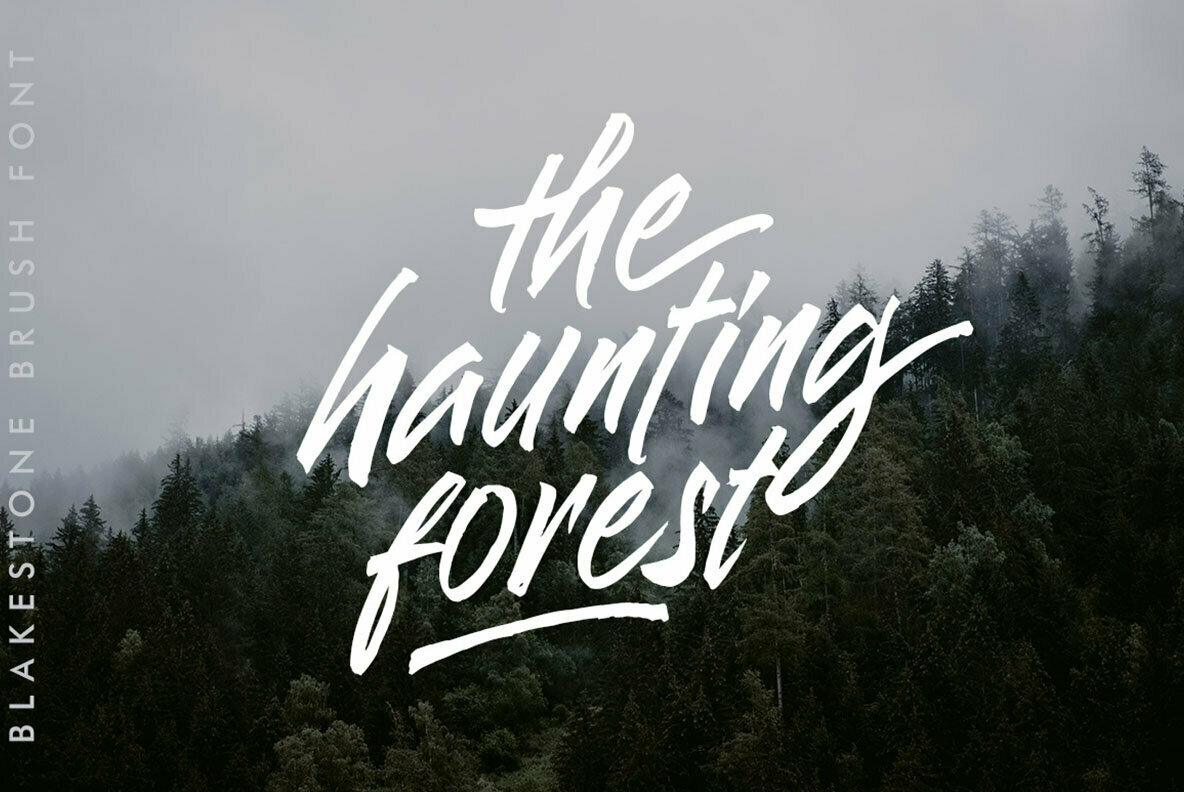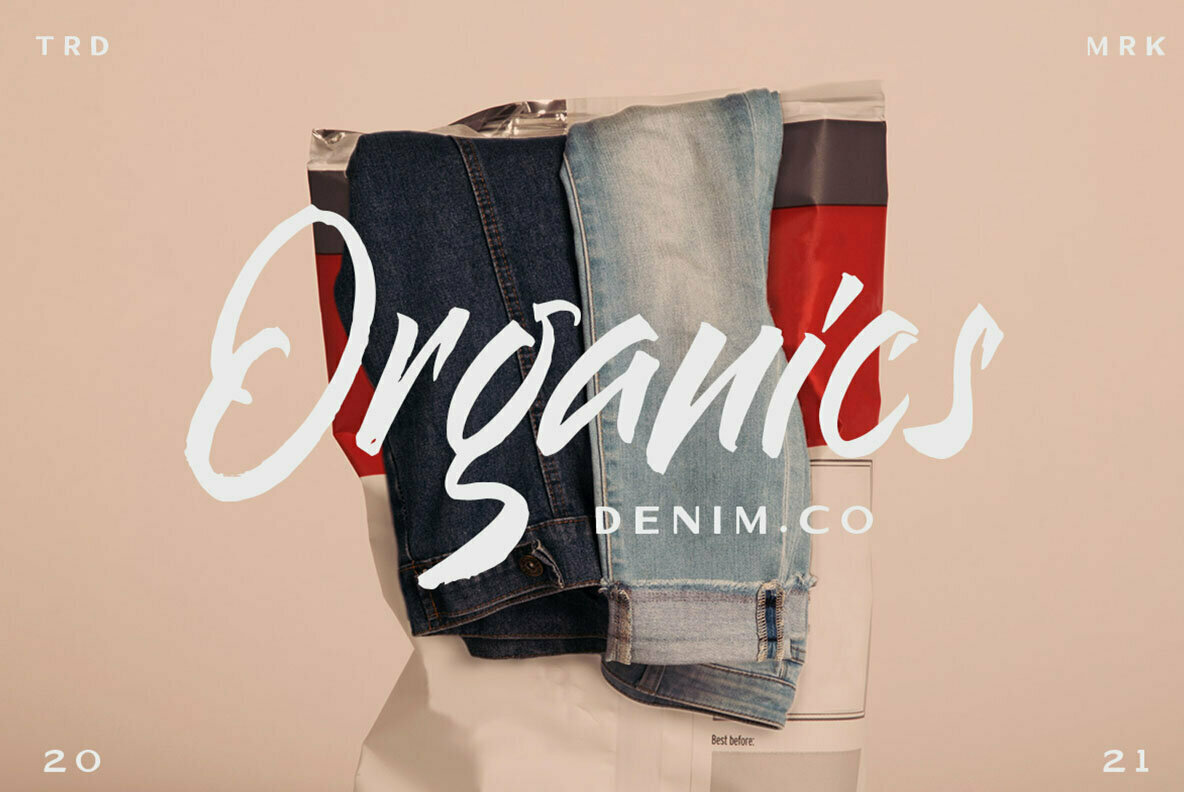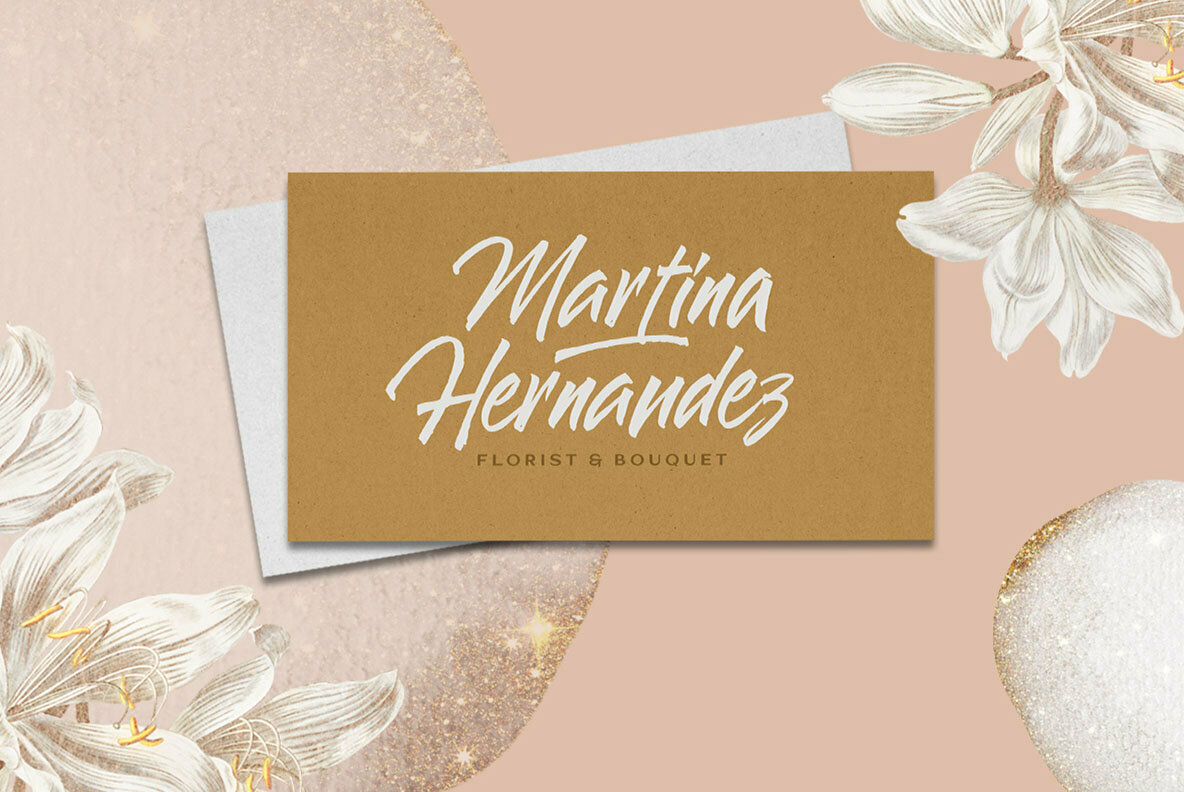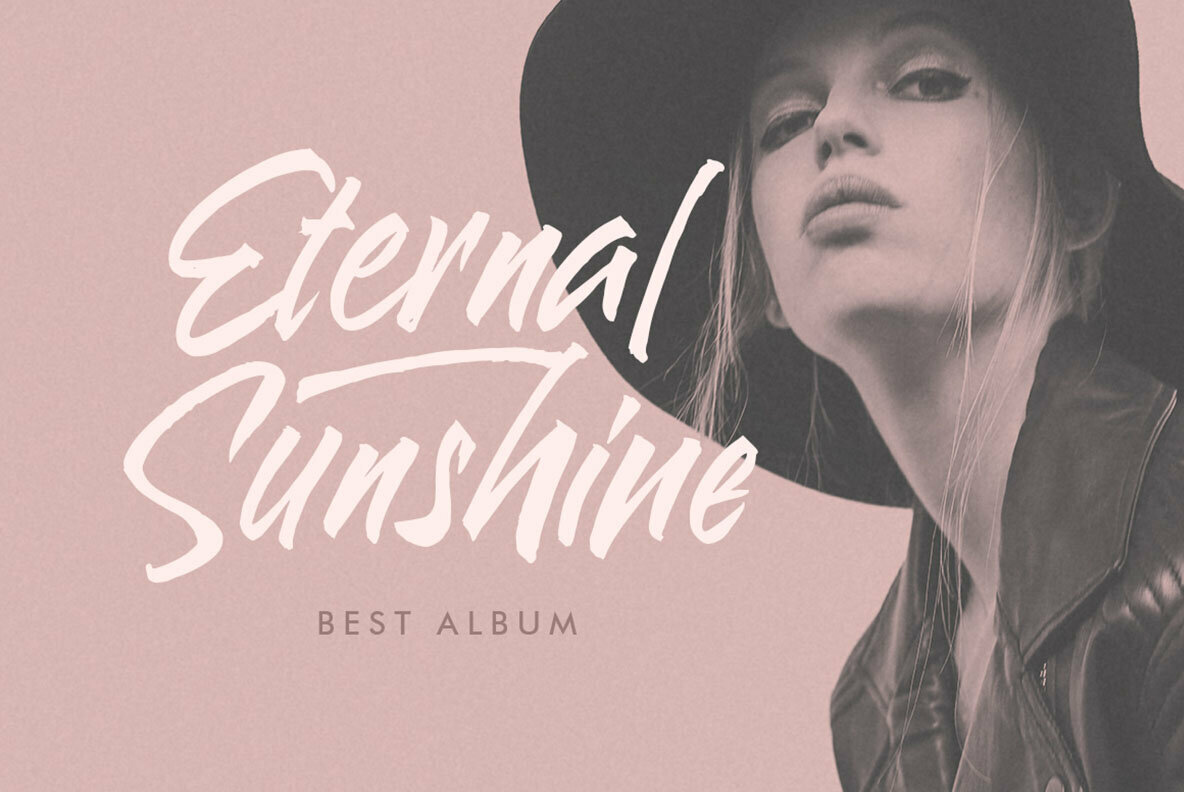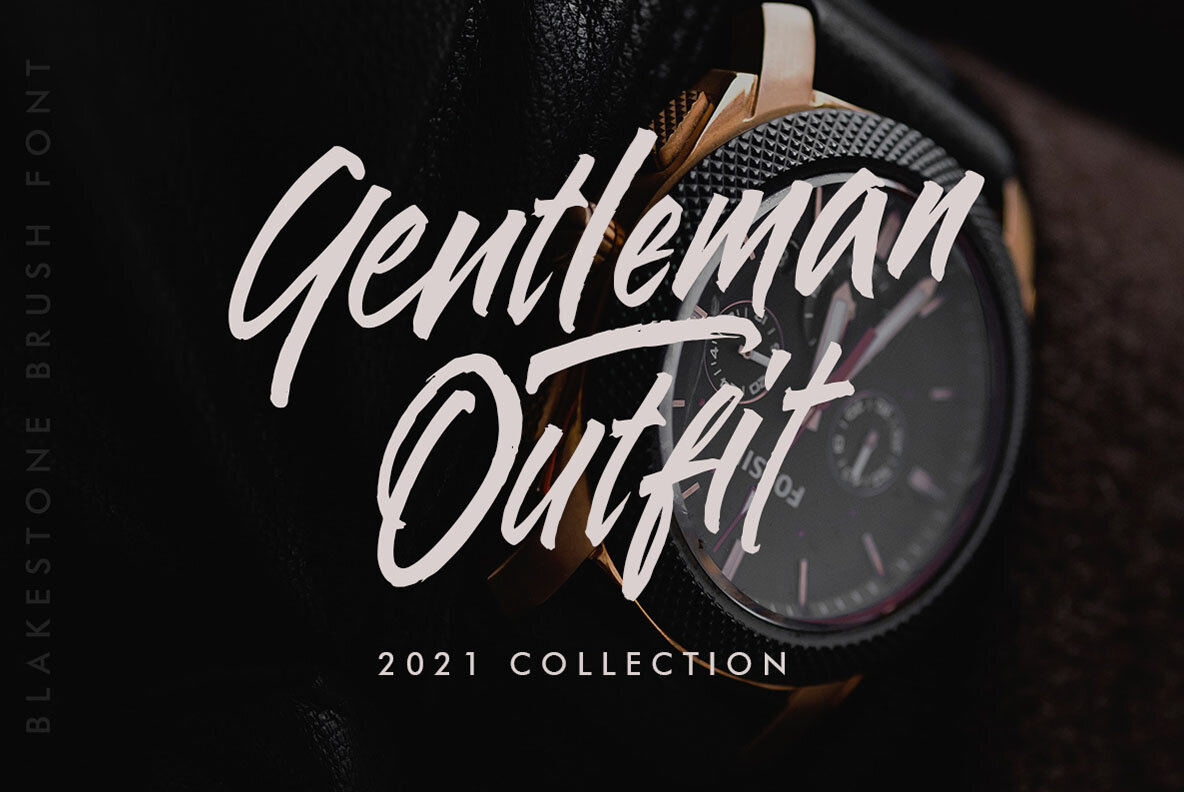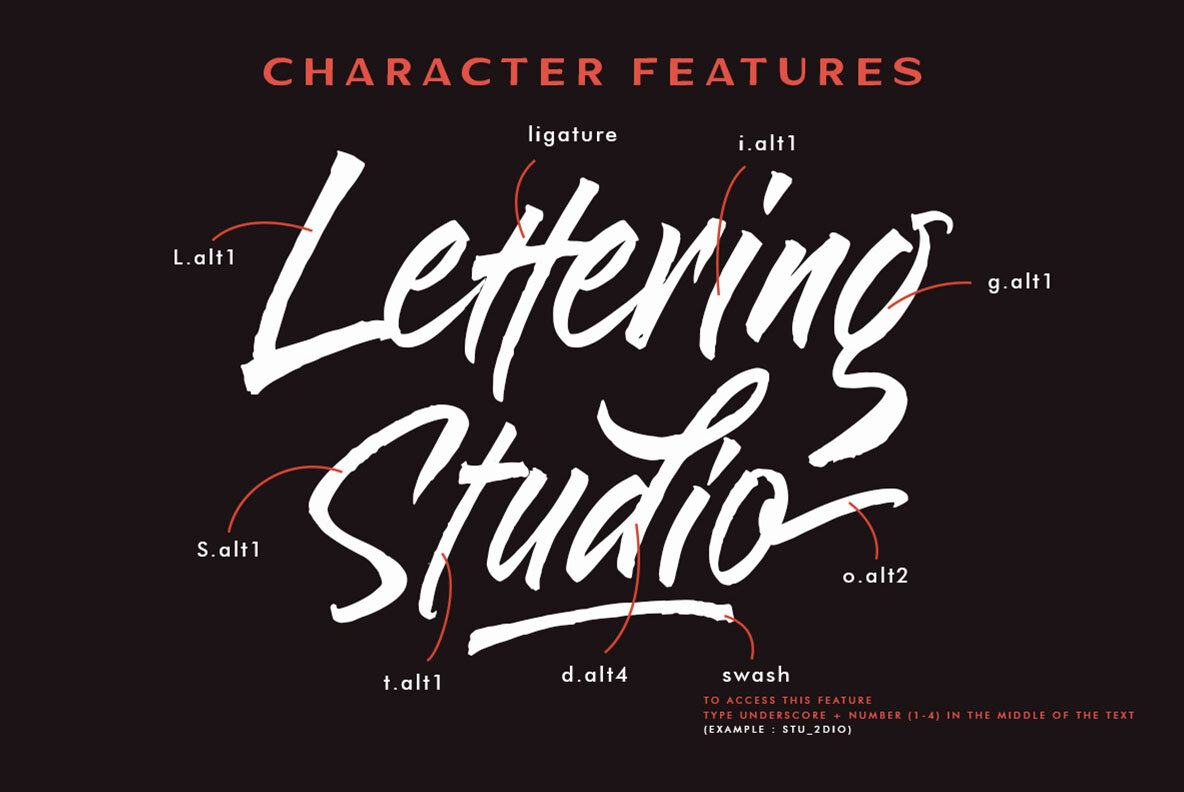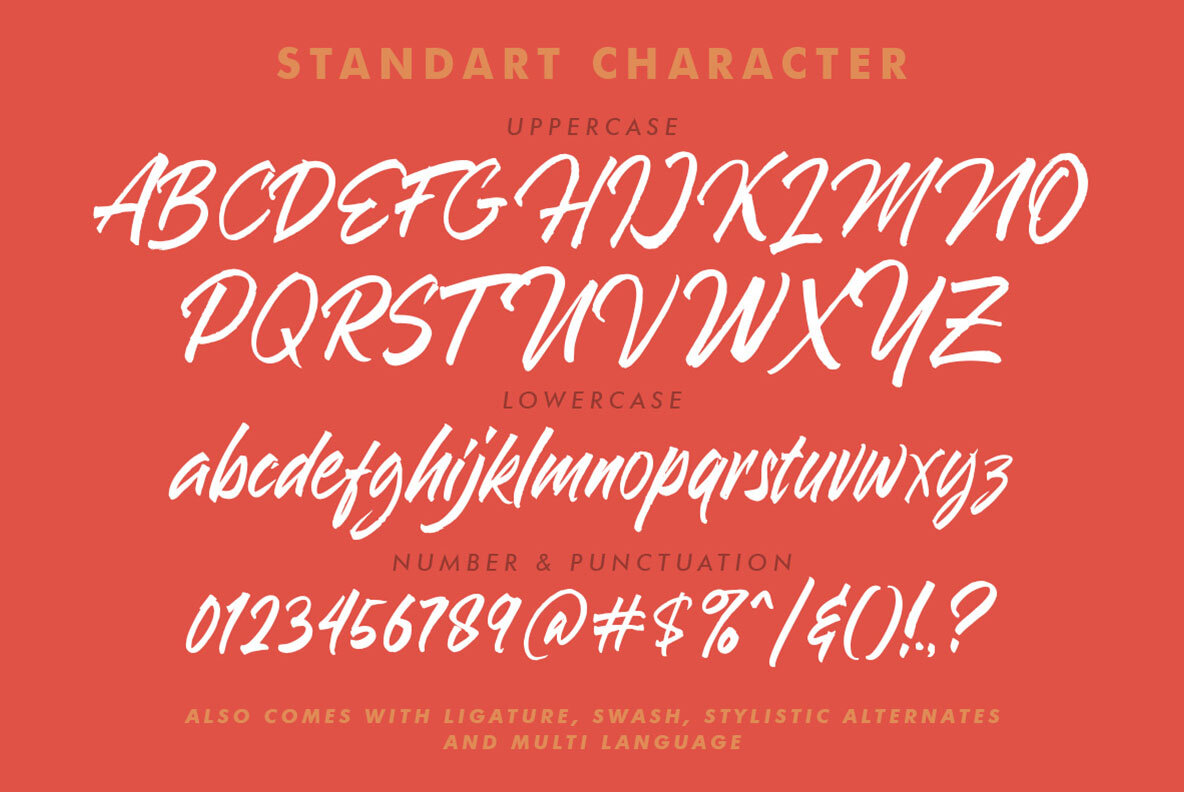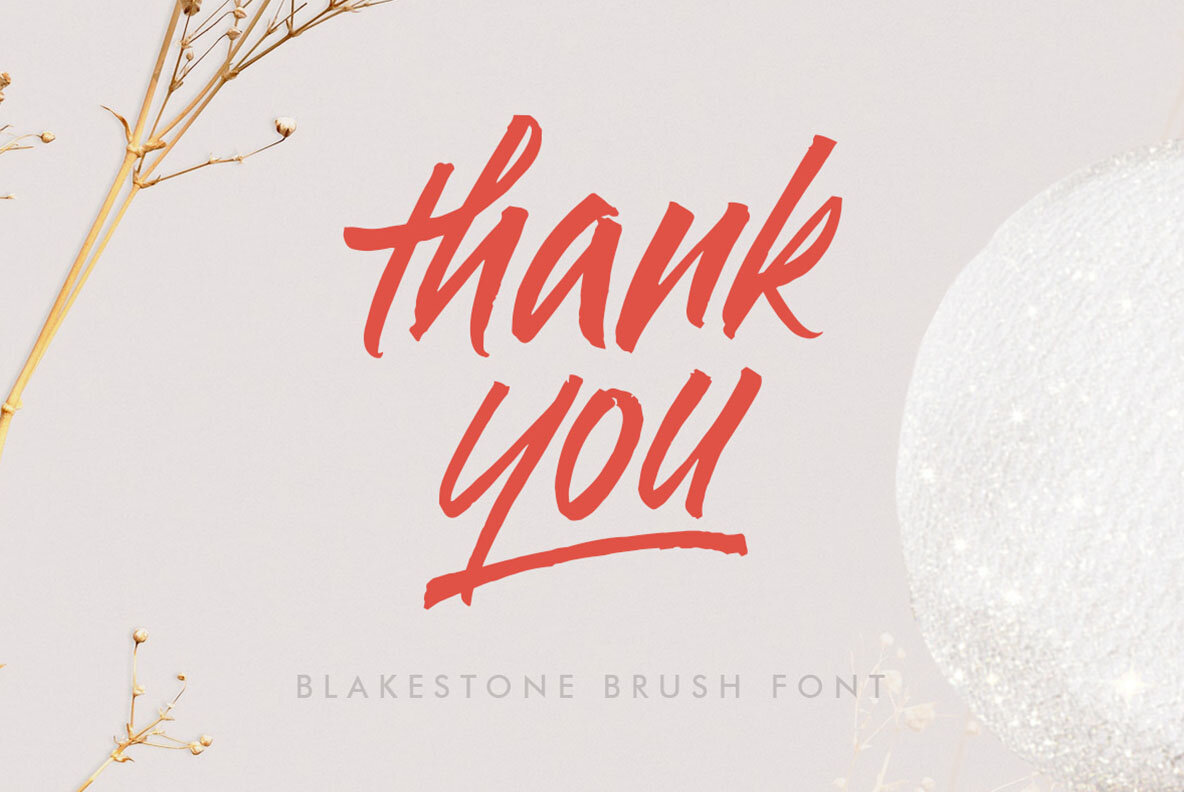
Blakestone Font
Blakestone
The Blakestone brush script by Letterhend Studio offers a distinctive style ideal for design elements from logos to formal invitations. Its hand-drawn appeal adds a personal touch to headlines, signatures, and an array of advertising materials. For optimal creative expression, it is advisable to use programs that support OpenType features and Glyph panels, such as Adobe applications and Corel Draw.Blakestone: Hand Drawn Brush Script for Versatile Design